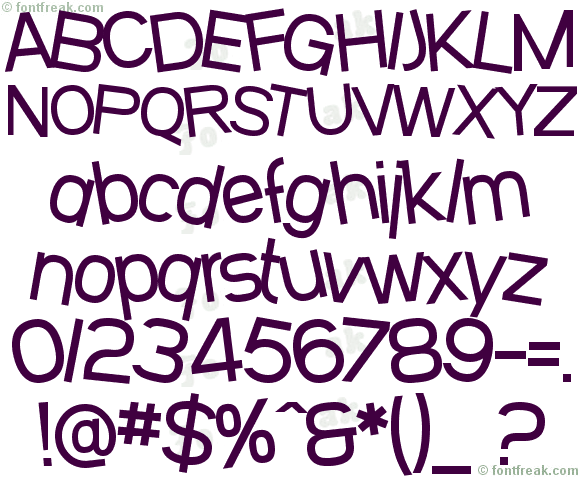
About Beaverton
Beaverton, crafted by Shyfonts Type Foundry, is an eye-catching display typeface that embodies a unique blend of boldness and elegance. This font, categorized as a heavy sans-serif, features a striking stroke weight that commands attention while maintaining an approachable feel. The design exhibits a pleasing balance of contrast and spacing, ensuring excellent readability even at larger sizes. Its clean lines and rounded edges contribute to an inviting aesthetic, making it versatile for various creative projects.
The Beaverton font excels in several specific use cases, making it an excellent choice for graphic designers and content creators. It is particularly well-suited for wedding invitations, where its graceful yet bold appearance can enhance the special occasion. Additionally, Beaverton shines in movie posters, where its dynamic presence can draw viewers' attention and convey the film's tone. Restaurant menus also benefit from this font's readability and charm, allowing dishes to be showcased in an engaging manner. Furthermore, Beaverton is ideal for branding efforts, particularly for small business owners looking to establish a memorable identity that stands out in a crowded market.
What sets Beaverton apart is its ability to blend warmth and sophistication seamlessly, making it a perfect canvas for creative expression. Whether you're crafting a heartfelt invitation or a striking promotional piece, Beaverton ensures your message is delivered with style and impact.